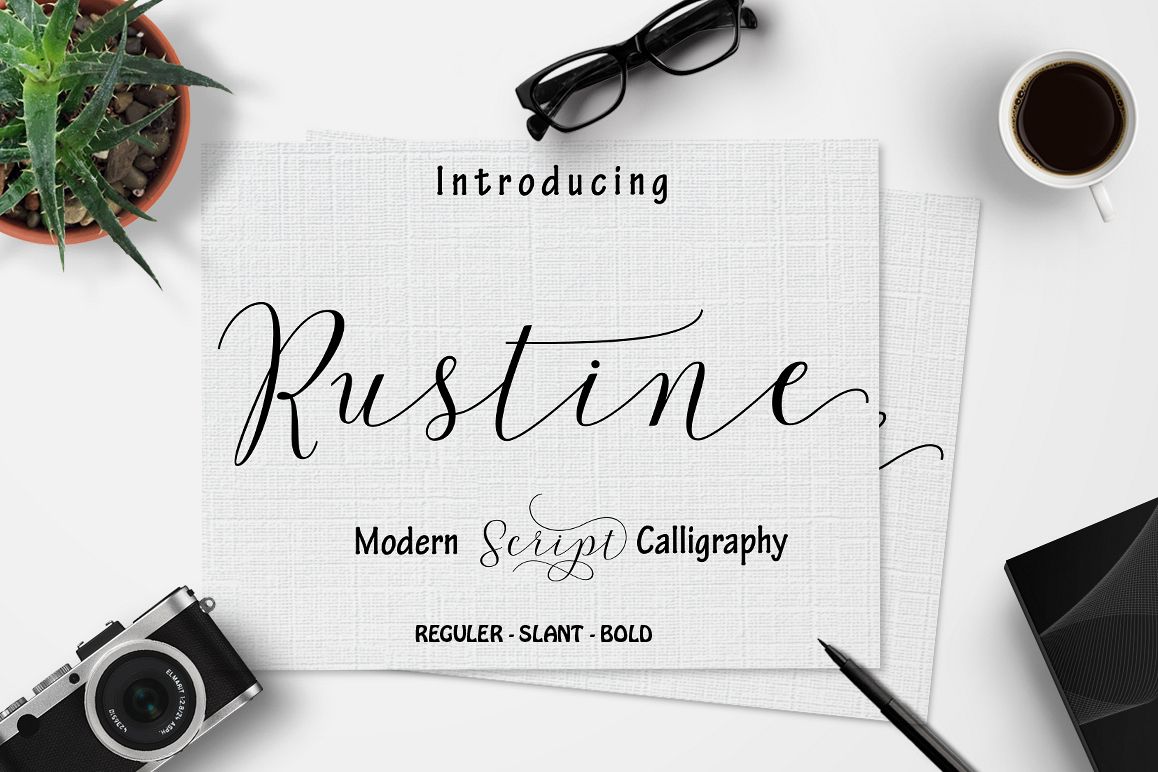
Introducing
Rustine Script a new fresh & modern script with a handmade calligraphy style, decorative characters and a dancing baseline! So beautiful on invitation like greeting cards, branding materials, business cards, quotes, posters, and more!!
Rustine Script including alternate glyph and beautiful swirl in a font including stylistic sets, Ligatures etc. The Open Type features can be accessed by using Open Type savvy programs such as Adobe Illustrator CS, Adobe Indesign & CorelDraw X6-X7 and Microsoft Word. And this Font has given PUA unicode (specially coded fonts). so that all the alternate characters can easily be accessed in full by a craftsman or designer.
• Basic Latin A-Z and a-z
• Symbols
• Stylistic Set
• PUA Encode
• Latin Support Character